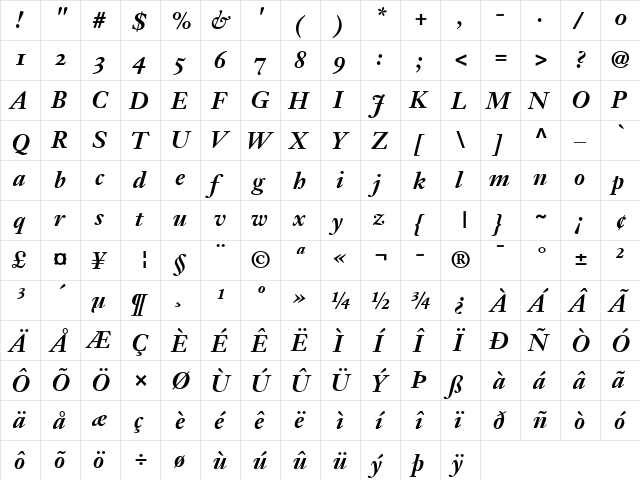
JansonText RomanSC Bold Italic Font Preview
JansonText RomanSC Bold Italic
JansonText RomanSC Bold Italic Font Details
Design Context for JansonText RomanSC Typeface
JansonText RomanSC is a composed and adaptable typeface that performs quietly and consistently across a wide range of design contexts. The slanted form adds forward momentum and visual energy. Its bold stroke weight gives it real presence on the page.
Pro Tip: Use JansonText RomanSC for emphasis, pull quotes, and subheadings where its slanted energy can add rhythm to the layout.